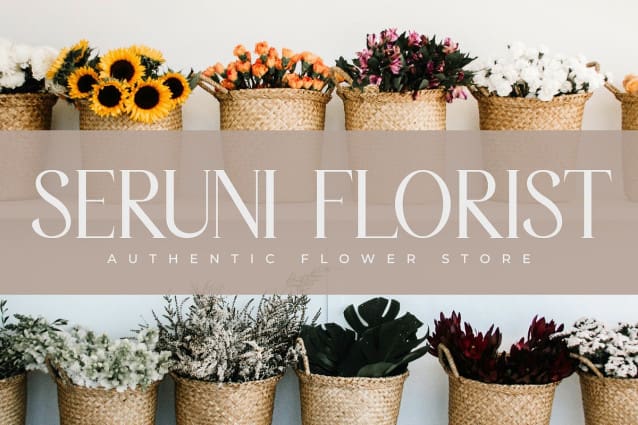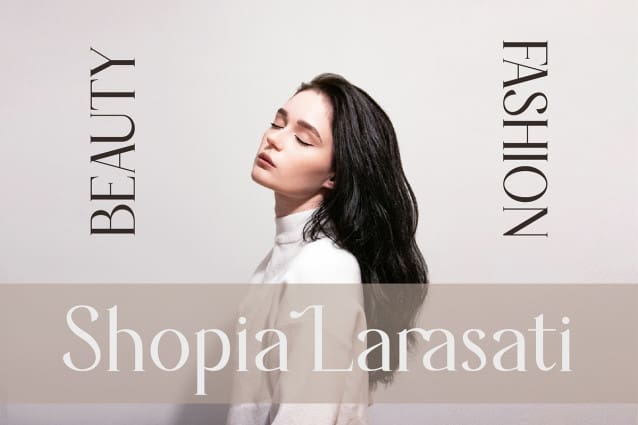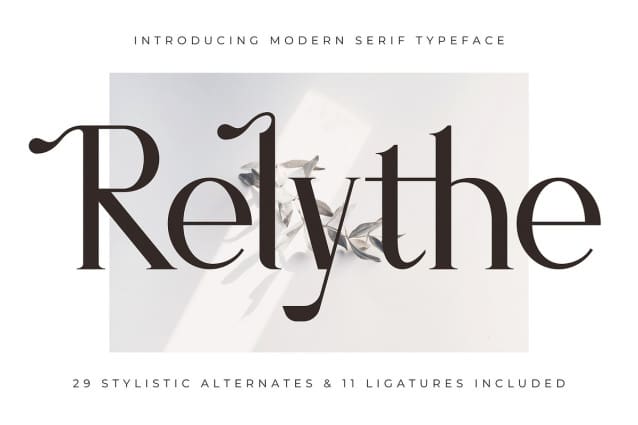
Relythe Font
Relythe Font – Modern Serif Font, from Rishsketch Studios, is a premium Serif Font, perfect for any project that requires a distinctive, and premium feel.